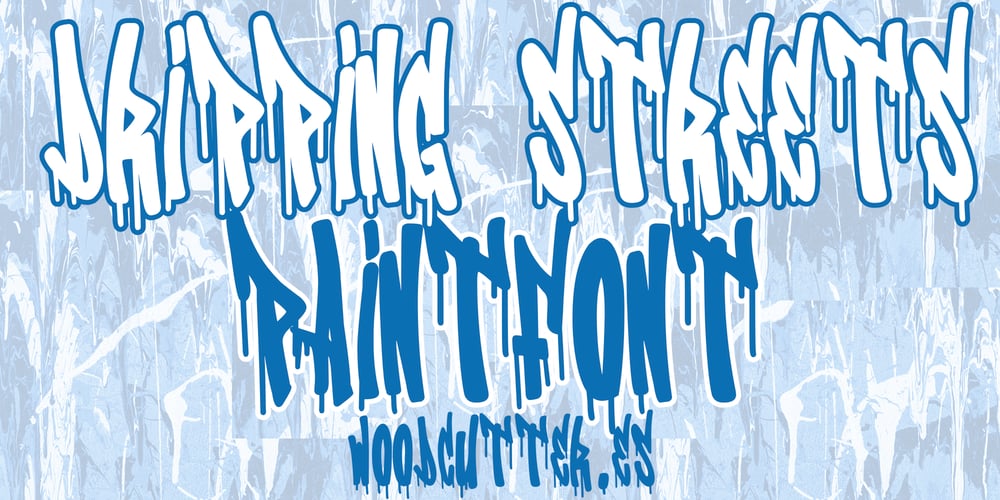
Dripping Streets Font Family was designed by Jordi Manero and published by Woodcutter. Dripping Streets contains 1 styles and family package options. “Dripping Streets” is an all-uppercase font with accents that embodies the essence of urban graffiti. Designed in a handwritten marker style, each letter appears to drip fresh ink, creating a striking and authentic visual effect. Its fluid and dynamic strokes convey raw, rebellious energy, making it ideal for projects related to street art, urban music, or contemporary fashion. “Dripping Streets” blends the spontaneity of graffiti with a distinctive artistic touch, perfect for posters, covers, and designs that aim to stand out with bold personality.